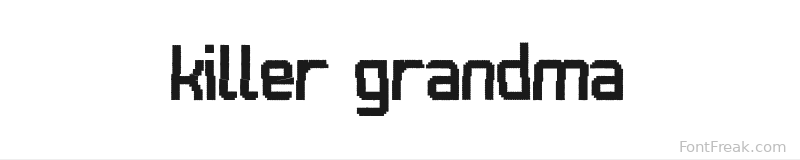
Killer Grandma
About Killer Grandma
The Killer Grandma font by woodcutter Manero is an intriguing display typeface that effortlessly combines a playful aesthetic with a bold personality. This decorative font features a unique blend of geometric forms and organic curves, making it stand out in various design applications. Its medium stroke weight provides a sturdy appearance, while the slight contrast in its letterforms adds visual interest without overwhelming the viewer. The spacing is well-balanced, allowing for easy readability even at larger sizes, which is essential for impactful design.
Killer Grandma is perfect for a variety of creative projects. Its charismatic character makes it an excellent choice for movie posters, where it can convey a sense of fun and whimsy. The font can also shine in restaurant menus, imparting a casual yet stylish touch that draws attention to the culinary offerings. Additionally, it can be effectively used in branding for small businesses, especially those in the creative food industry or artisanal sectors. Wedding invitations can also benefit from its charming flair, making special occasions feel even more memorable.
What truly sets Killer Grandma apart is its ability to evoke a sense of nostalgia while simultaneously feeling modern. Its quirky, bold appearance invites creativity, making it an essential addition for anyone aiming to leave a lasting impression through their typography. Whether you're crafting a playful brand identity or designing eye-catching promotional materials, this font is sure to enhance your visual narrative.